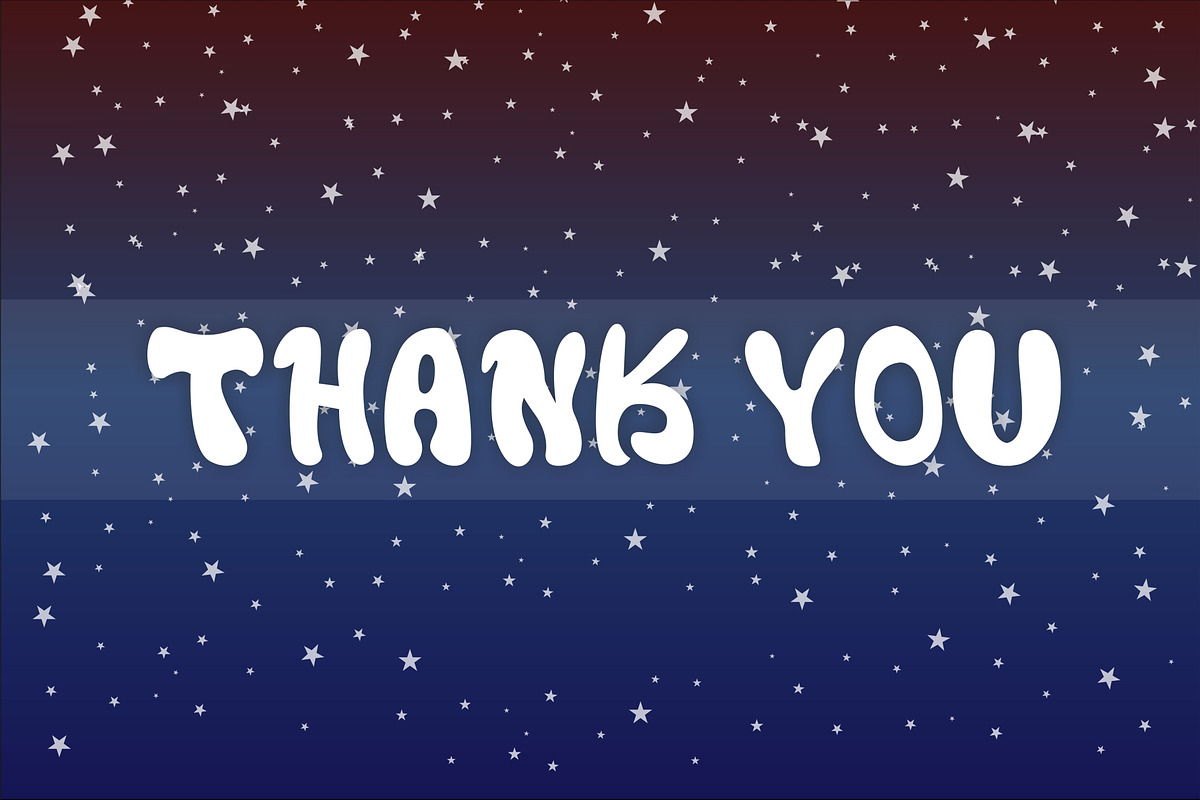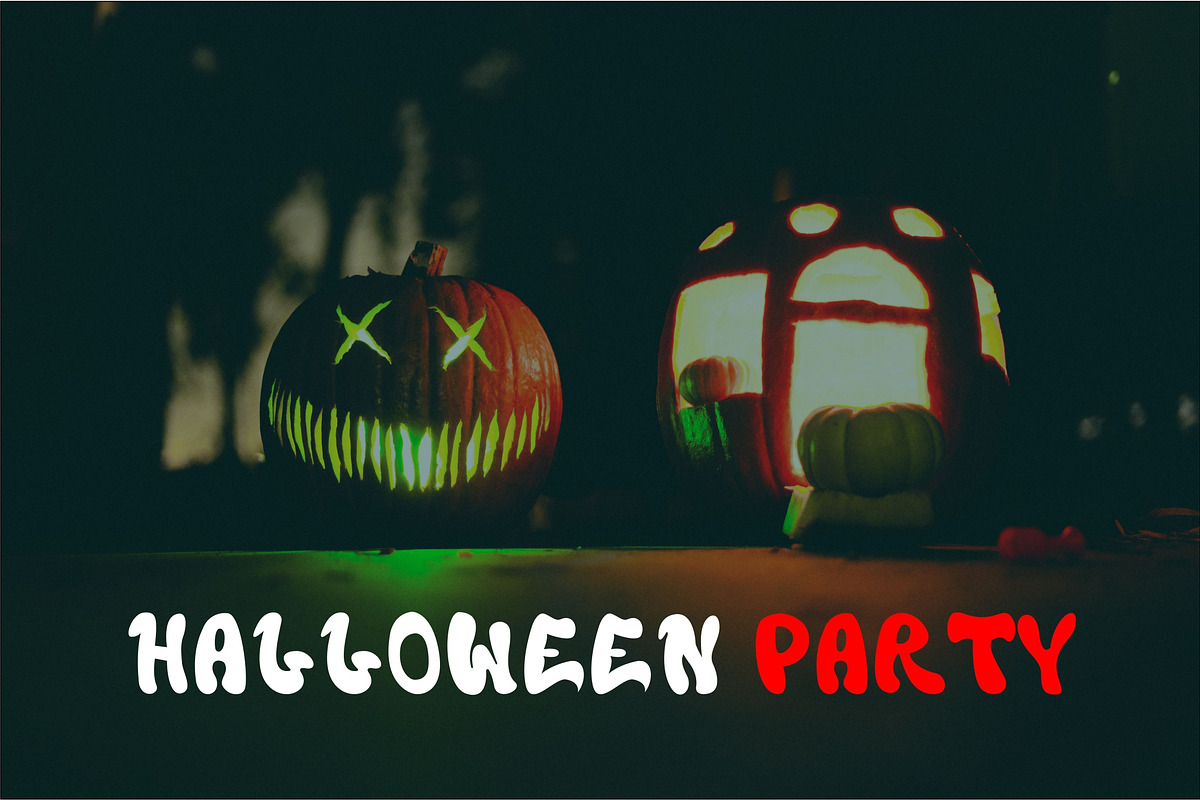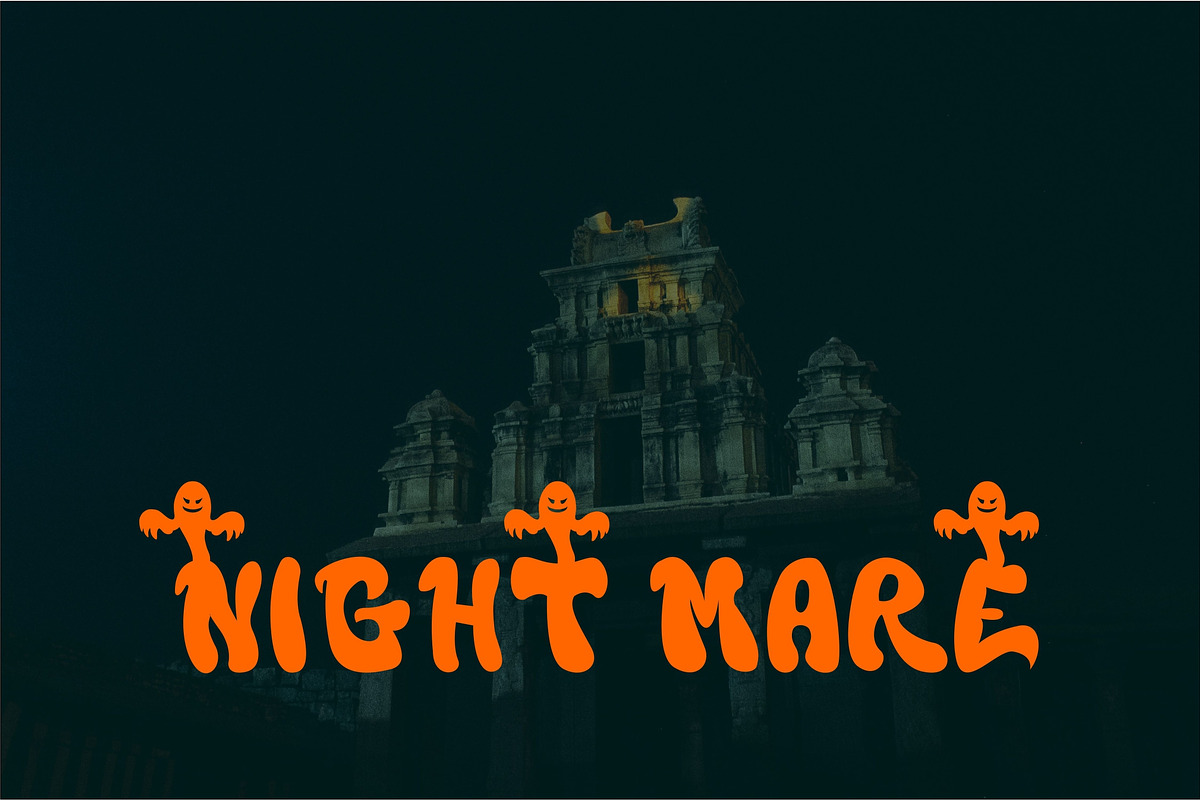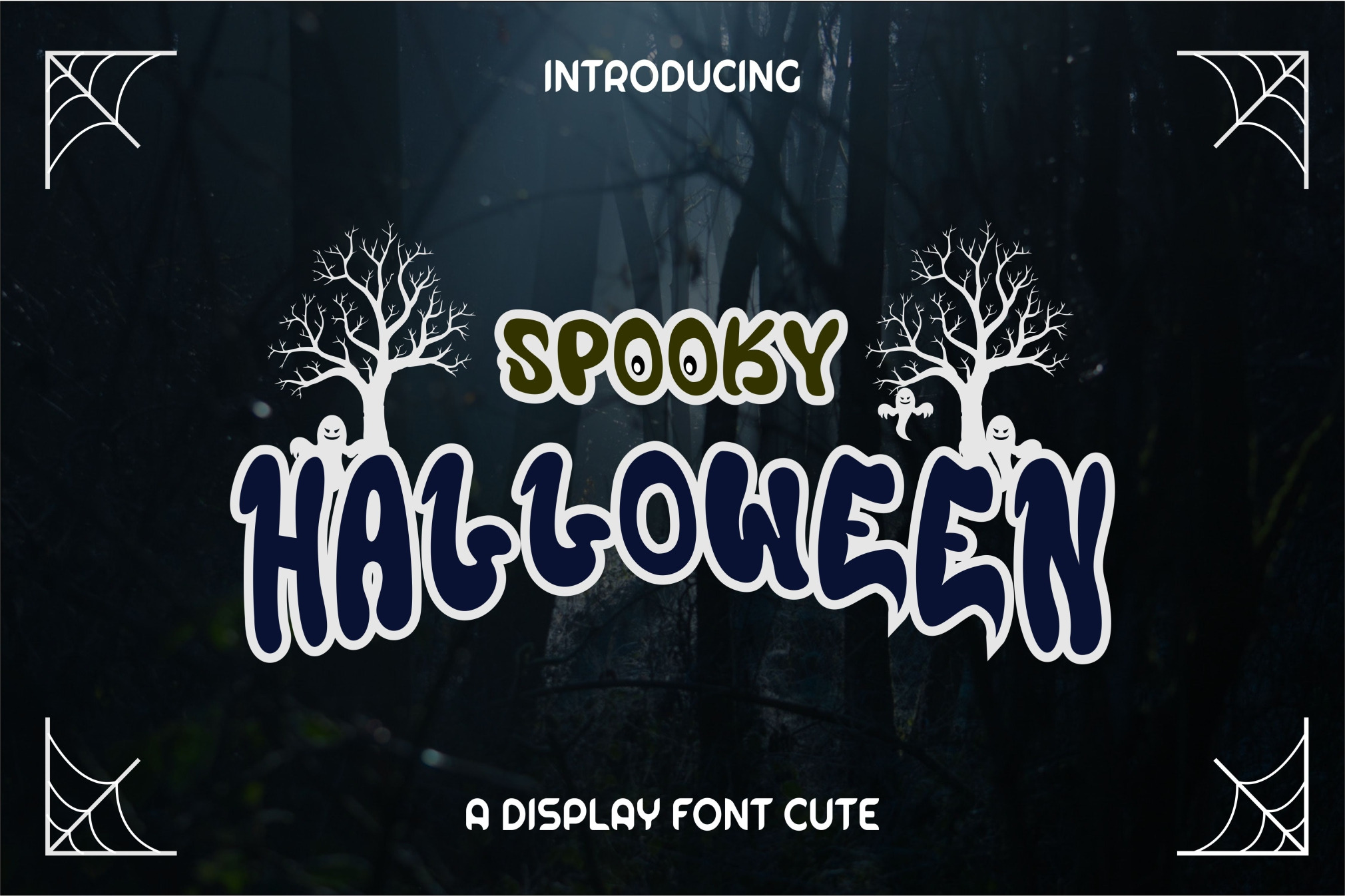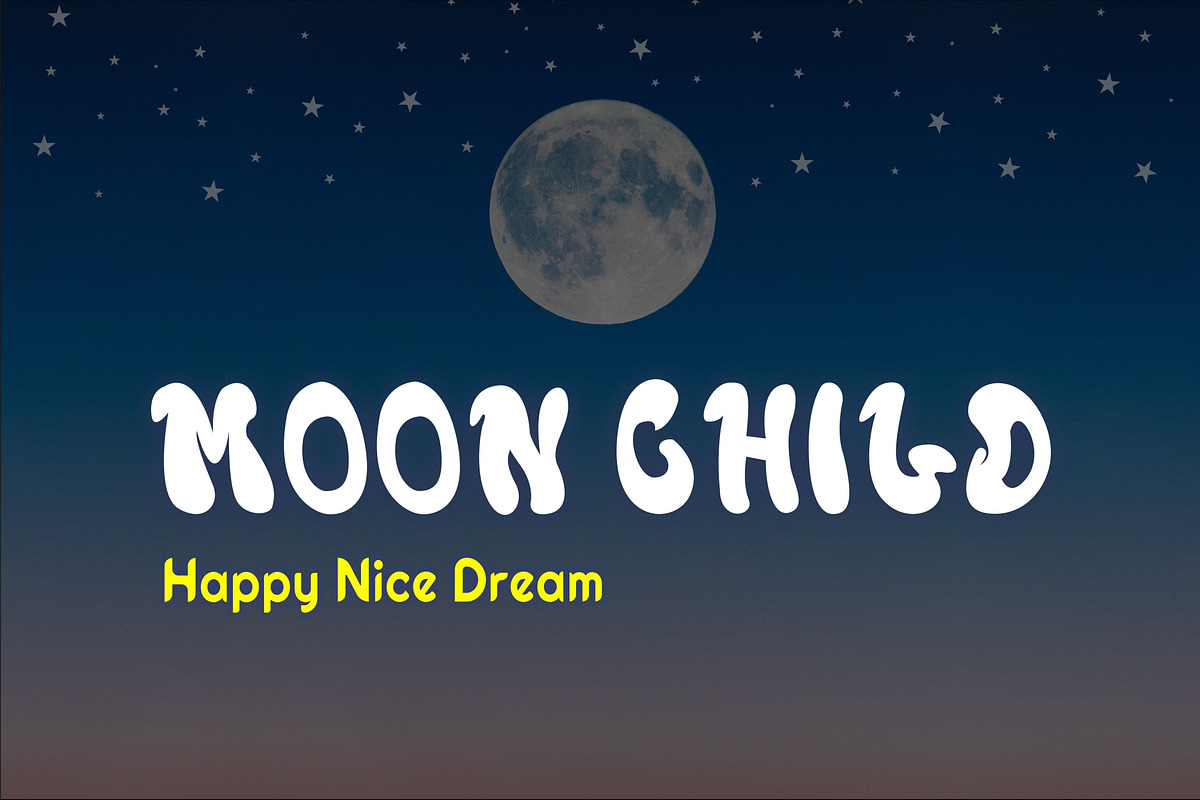
Spooky Halloween Font - Display Cute
Spooky Halloween is a cool, retro, and fun display font. It will look great on headlines, magazines, logos, branding, and so much more!